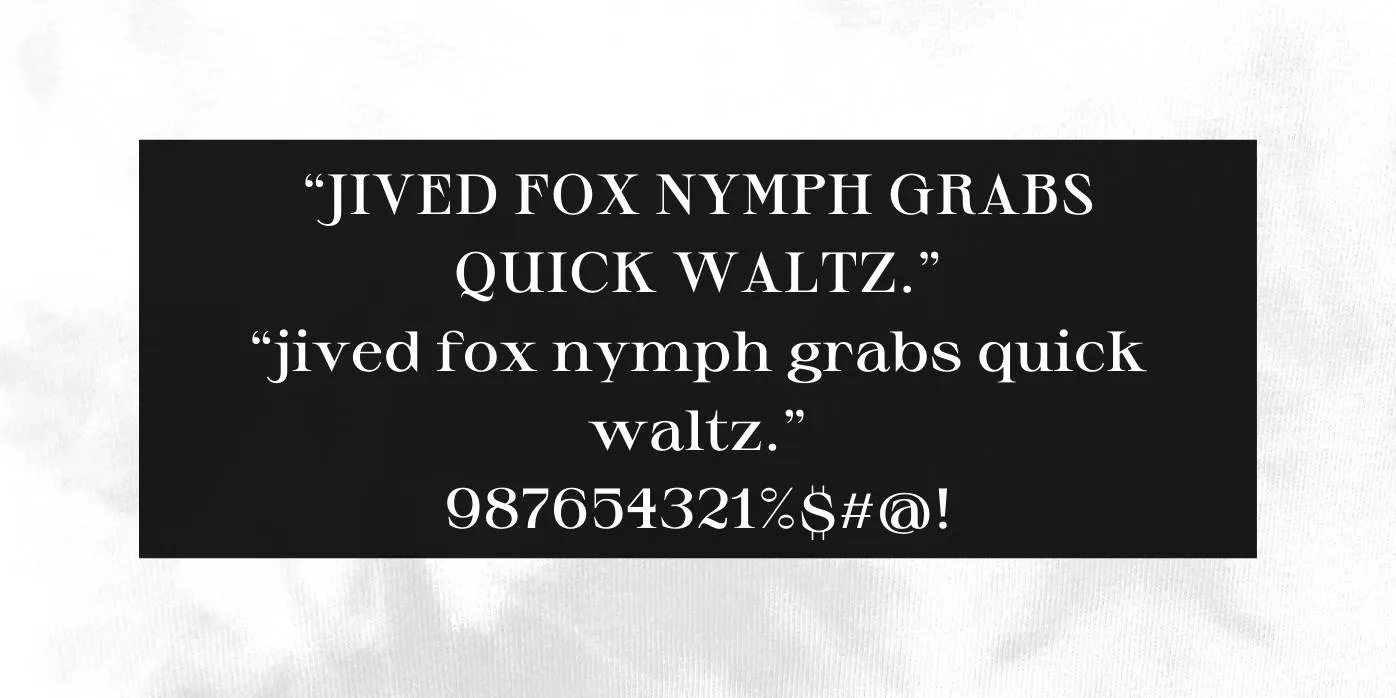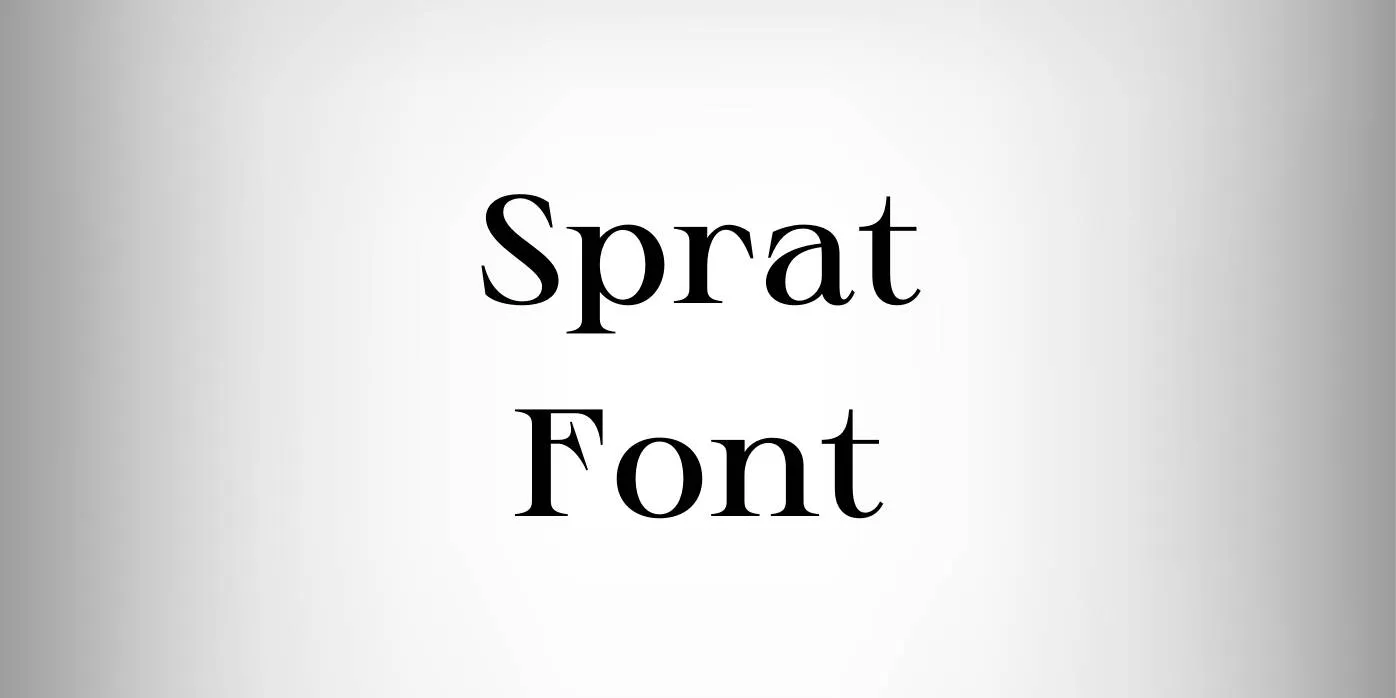
Sprat Font
Sprat Font is a serif typeface designed by Canadian type foundry Vic Lardent and released in 2019. The design is based on hand-lettering from the early 20th century and incorporates a wide range of styles including Display, Text, and Titling variants. This Font is available in both regular and bold weights, with each weight containing over 700 characters. This Font was inspired by the hand-lettering of the early 20th century and incorporates a wide range of styles.